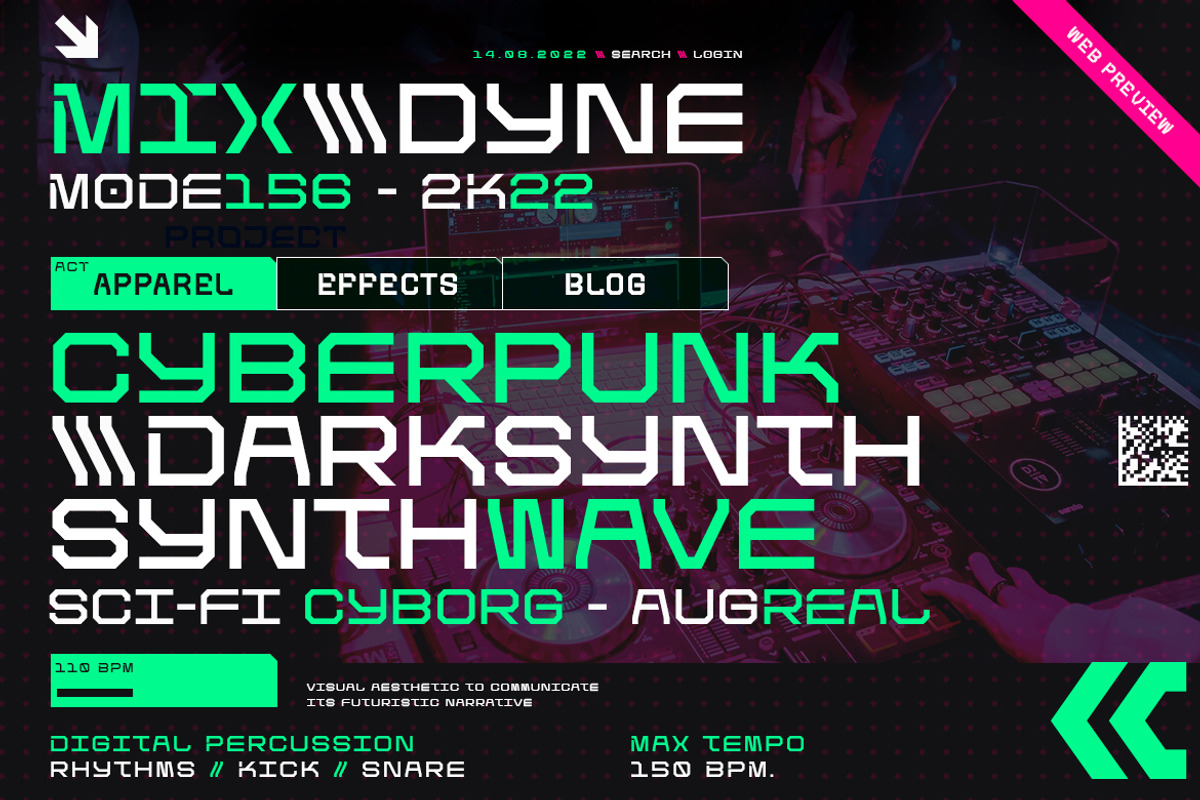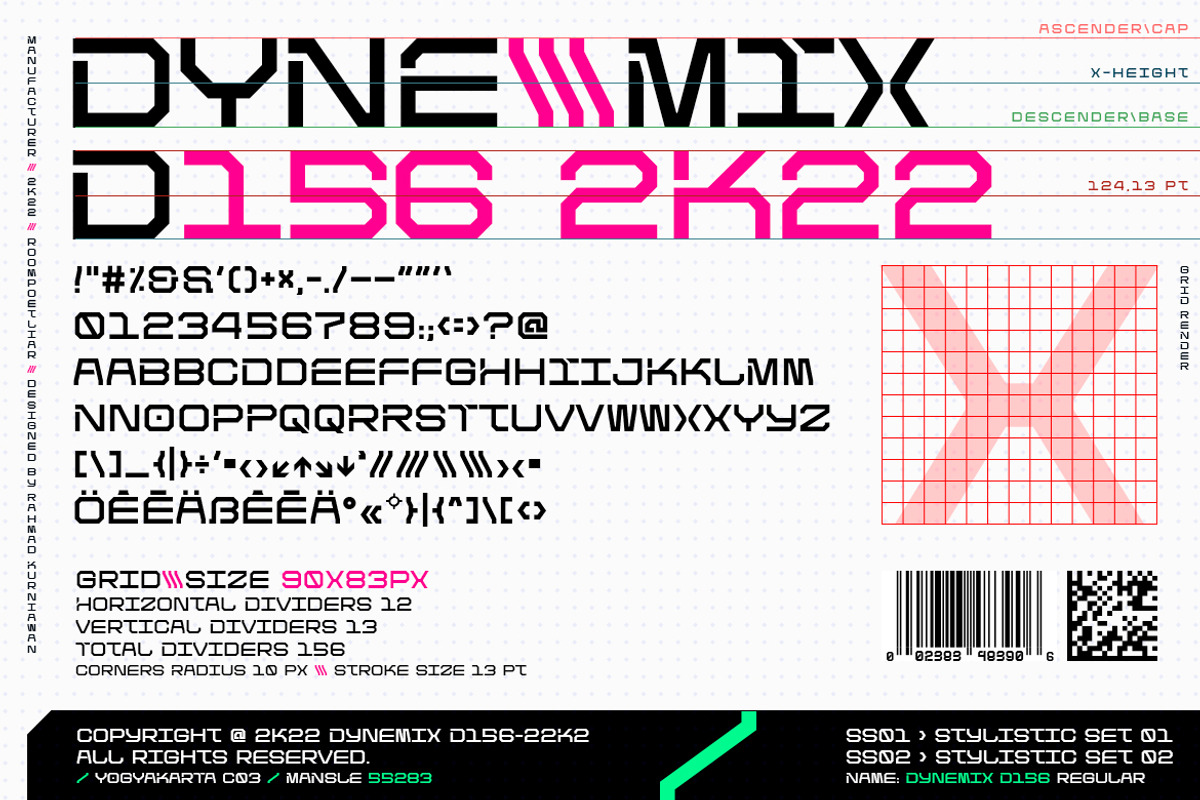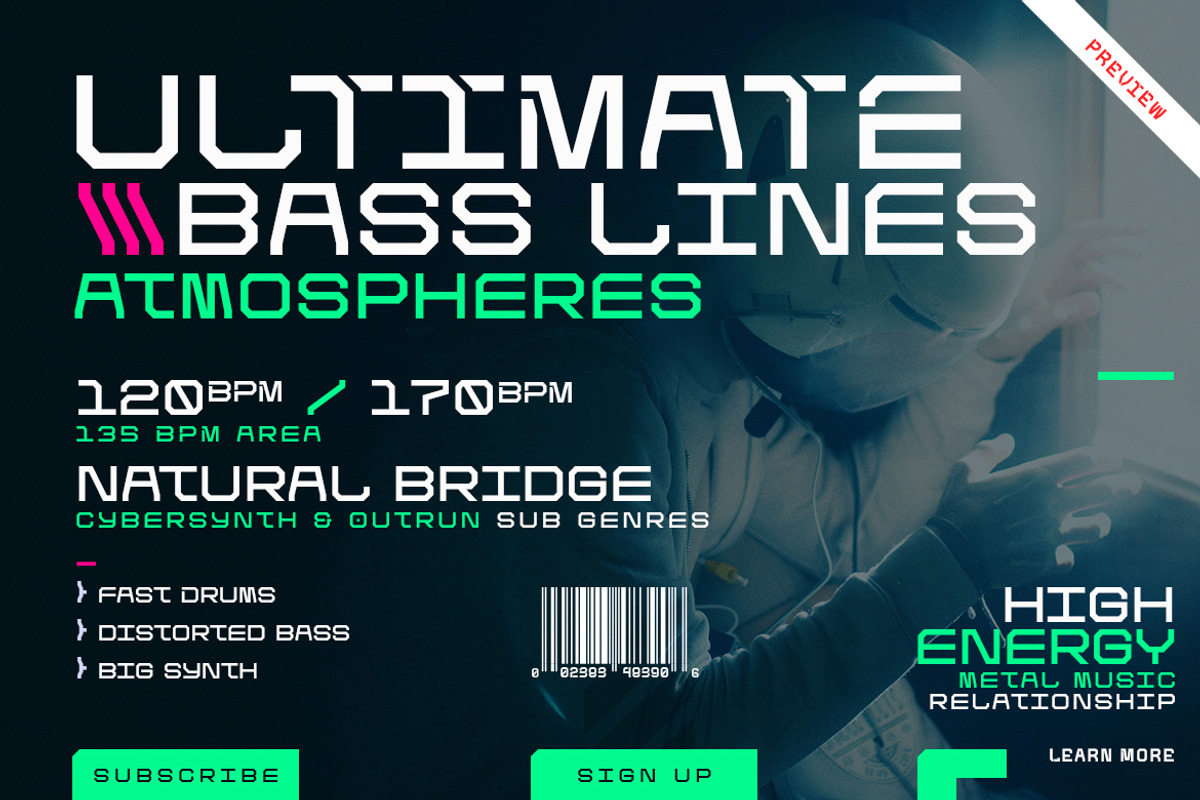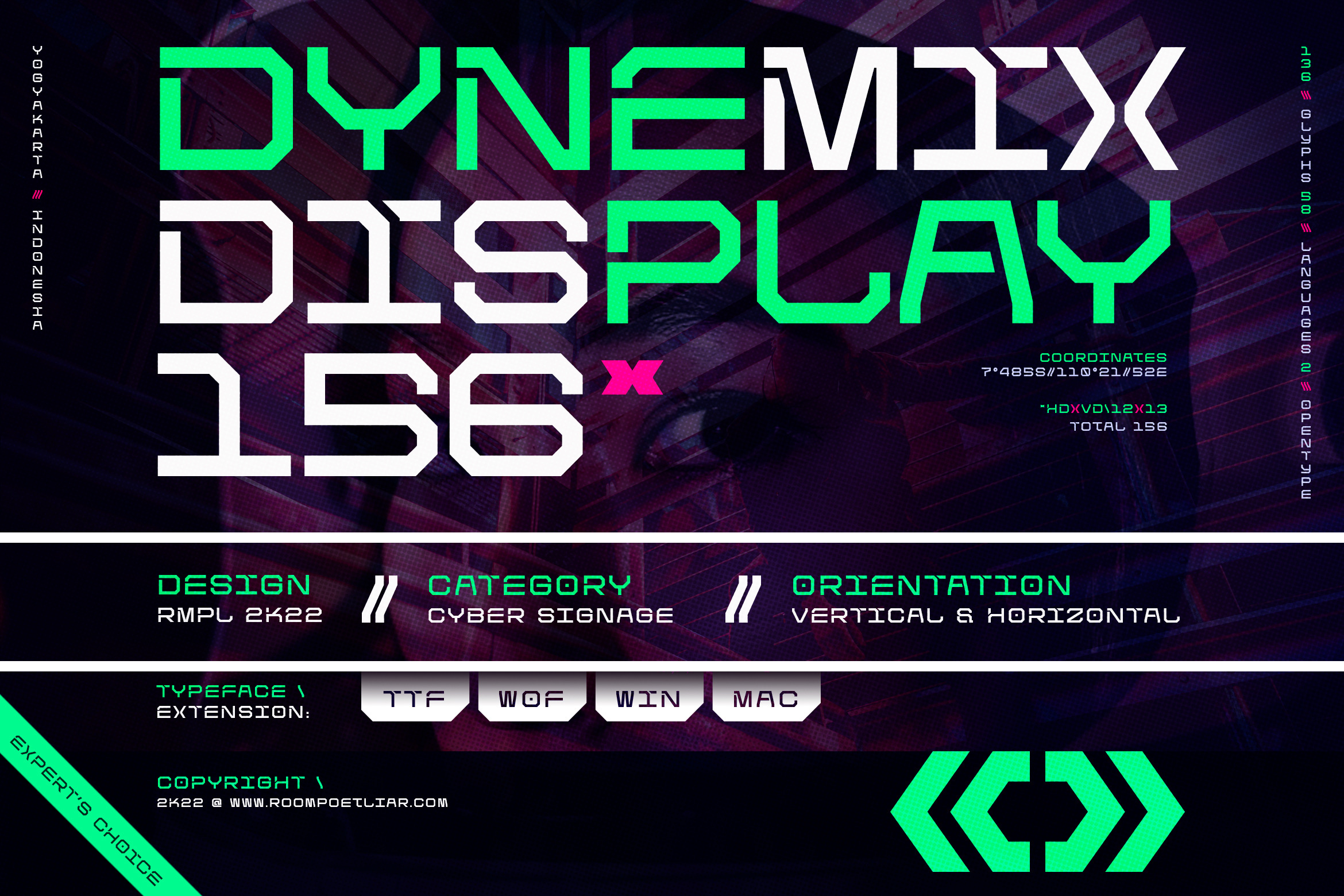
Dynemix Display Font
Dynemix Display 156 Font is a futuristic cyber font, inspired by sci-fi and technology. Designed the font with a modern feel to achieve the theme. Suit perfectly for future and science segmented magazine, marketing design, technology, sci-fi design, poster, movie title, music poster, youtube covers, youtube thumbnails, social media page covers, poster designs, headlines, typography projects (streetwear, construction, resistance, solidarity, movement, revolution), E-Sport logos, sports jersey text, and much more.
- Basic Latin A-Z and a-z, Numbers, and Punctuation